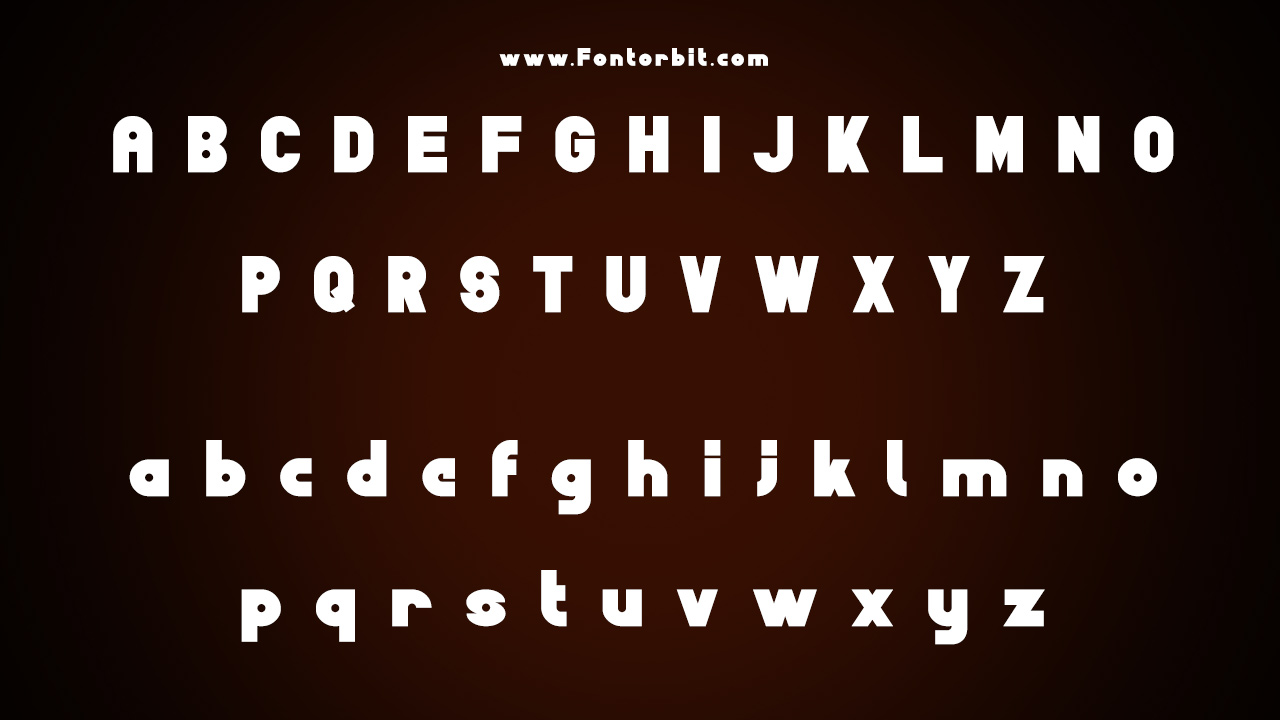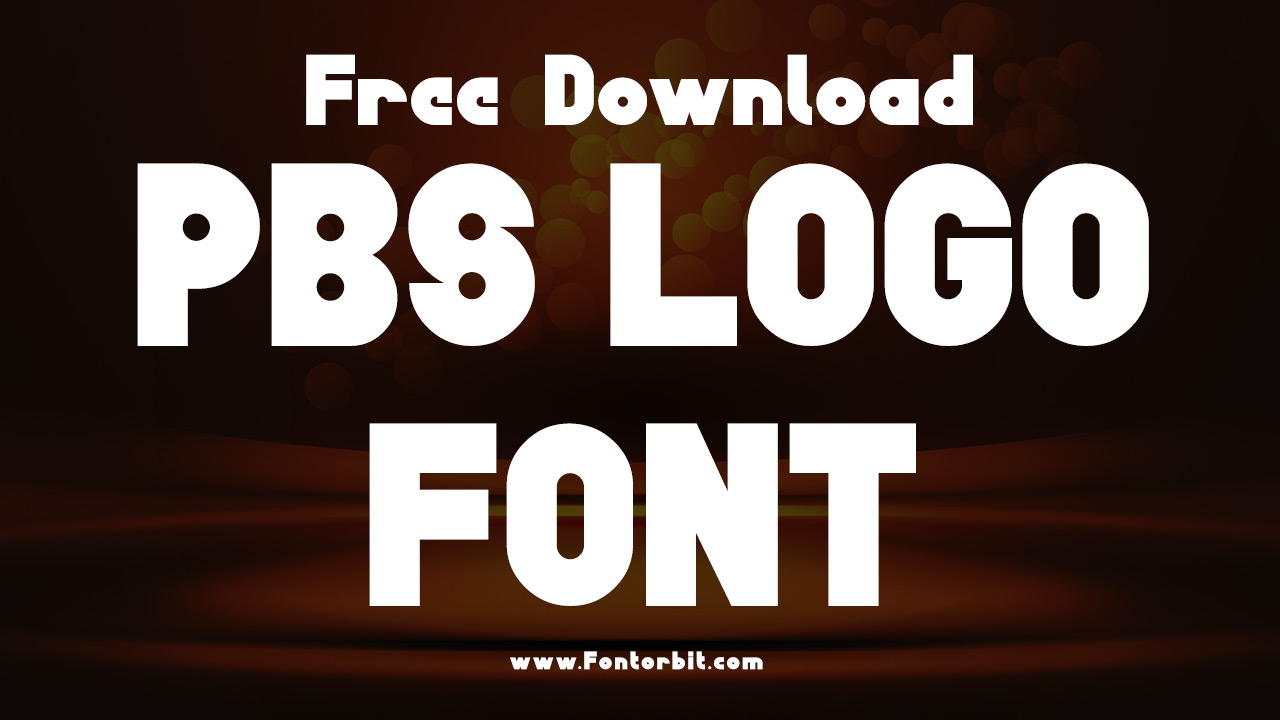
The PBS Logo Font Family
This typeface is characterized by its clarity and strong presence, designed to complement the PBS logo’s Shield, Profiles, and Wordmark. Its balanced and highly legible style is perfect for a wide range of applications, from digital interfaces to print materials. PBS Regular maintains the brand’s visual integrity while ensuring readability.
PBS Logo Font excels in creating a cohesive and recognizable brand presence. Its clean and professional design is well-suited for applications where maintaining brand consistency and high legibility are essential.
PBS Logo Font’s professional and clear design makes it an excellent choice for a range of branding and informational materials. Its distinctive letterforms ensure brand consistency while providing a modern, readable aesthetic for various uses.
1.What Is The PBS Logo Font?
PBS Logo Font is a clean and professional typeface used for the Public Broadcasting Service’s branding. It features distinctive letterforms that complement the PBS logo’s Shield, Profiles, and Wordmark.
2.How To Choose The Right Size For PBS Logo Font?
Use PBS Logo Font in sizes that ensure readability and align with branding guidelines. It is suitable for both large-scale signage and small-scale digital interfaces.
3.What Are The Key Features Of The PBS Logo Font?
PBS Logo Font features a clean and professional design with highly legible letterforms, designed to enhance the PBS logo and maintain brand consistency across various platforms.
4.How To Use The PBS Logo Font In Design?
Use PBS Logo Font to create cohesive branding materials, including digital interfaces, editorial content, and signage. Its clarity and professional style ensure effective communication of the PBS brand.